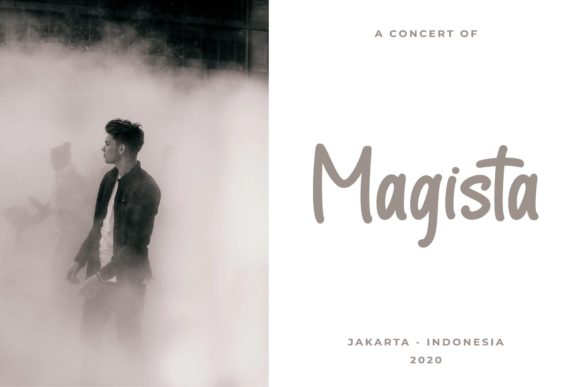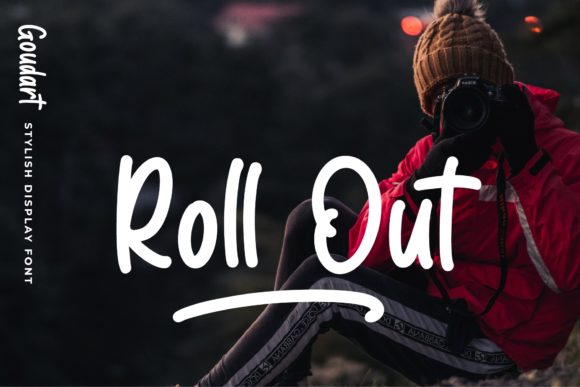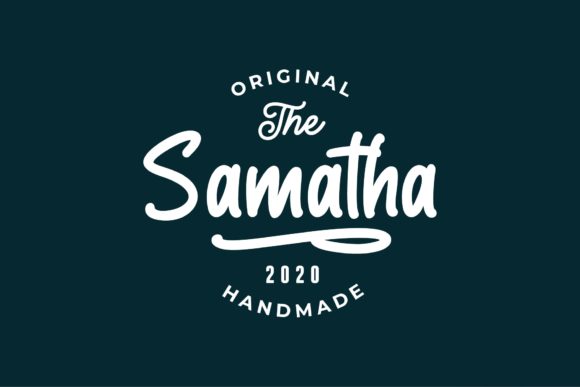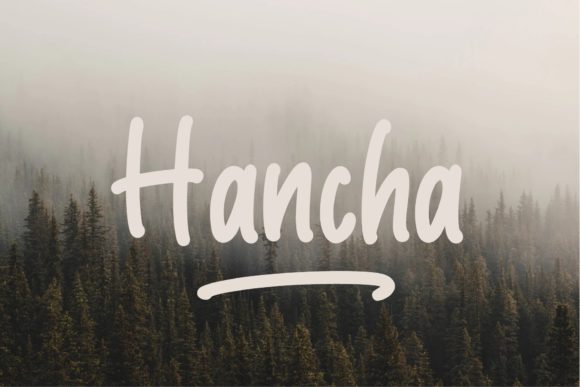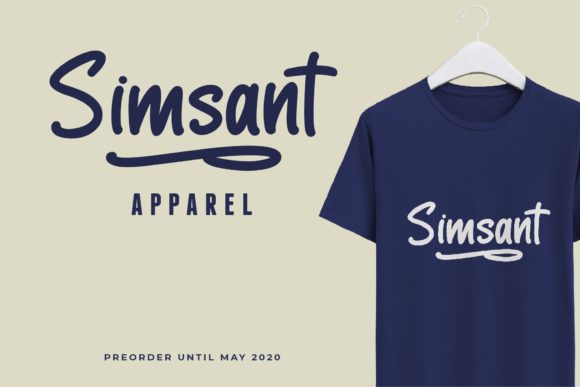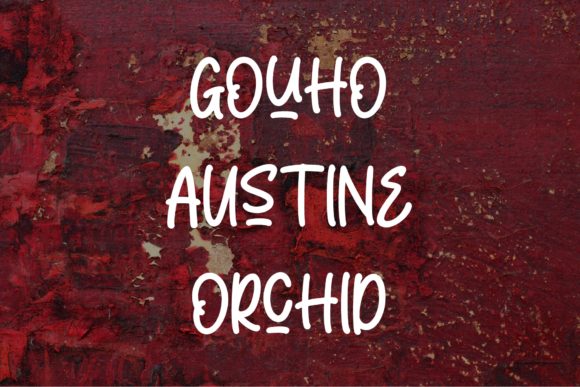
Introduction to Goudart Font
Goudart is a strong and joyful display font with a unique style.
Get inspired by its modern elegance .
Key Features of Goudart Font